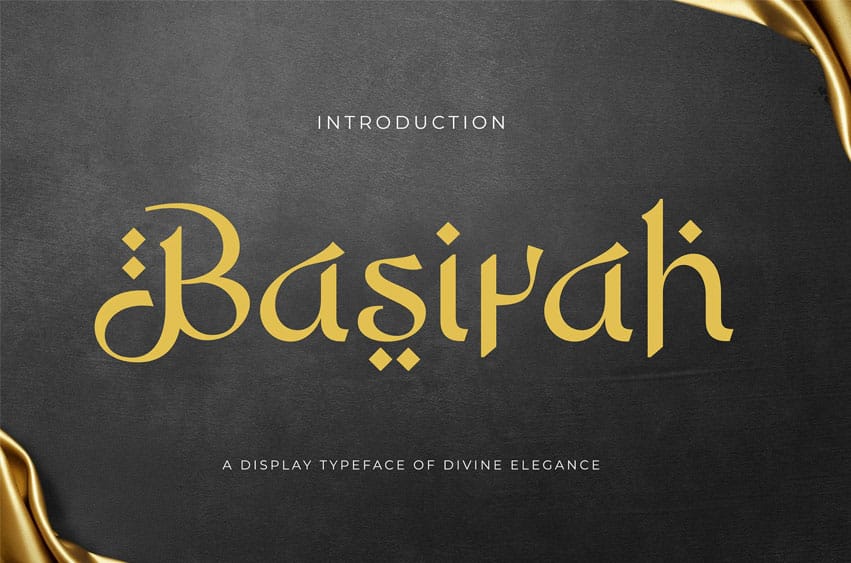
Basirah Font Srabic Font is a unique, modern display font with a unique, elegant, and modern style. It is a sans-serif font perfect for branding projects, logos, social media posts, product packaging, labels, etc.